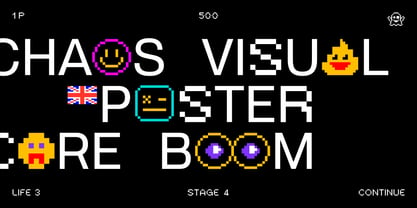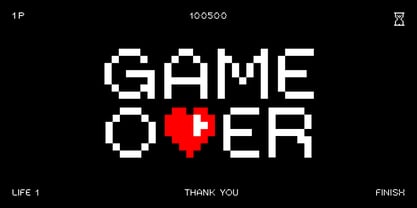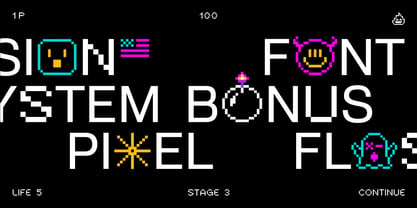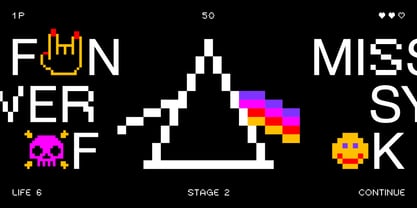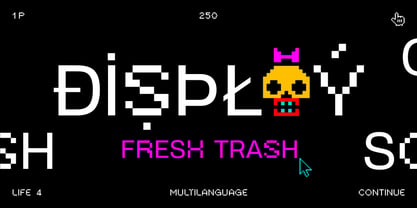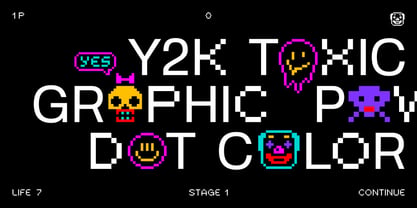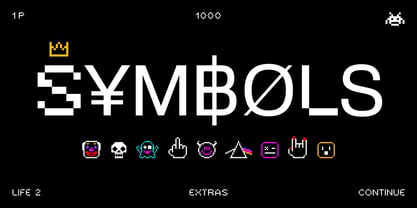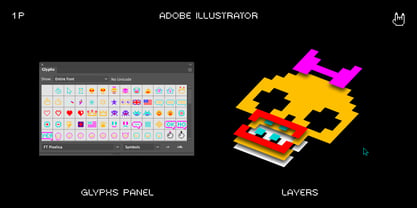
FT Pixelica
by Foxys Forest Foundry
The FT Pixelica Font Family was designed by Daniil Zdorov and published by Foxys Forest Foundry. FT Pixelica contains 3 styles and family package options. More about this family
Pixelica conveys the feeling of an era when the digital environment was still imperfect. When pixels were visible, imperfections became part of the aesthetic, and visual glitches added character. This is a typeface for projects that need more than just a clean, polished look.
Pixelica is a family of three interconnected styles: a clean grotesque, a pixel-based version, and a set of colored symbols. It combines contemporary typography with the aesthetics of early interfaces and arcades, where the pixel is perceived as an expressive element rather than a technical artifact.
Pixelica supports multilingual use and an extended Latin set. It works especially well in graphic headlines, posters, merchandise, interfaces, game projects, branding, and digital design, where retro aesthetics meet a modern approach.
MÜĻŤIĹĪŊĞÛÅŁ
Pixelica supports most Latin-based languages.
Designers: Daniil Zdorov
Foundry: Foxys Forest Foundry